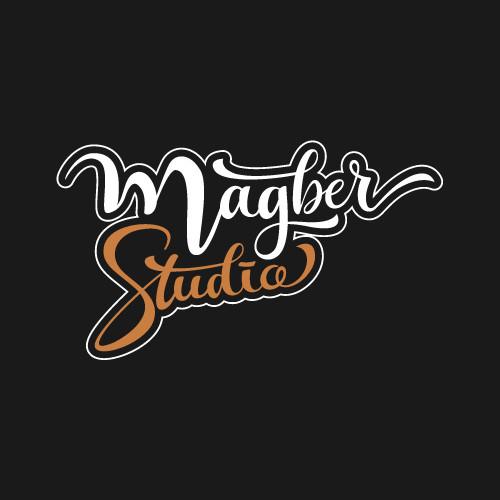
Jullyana Font Description
Jullyana is a modern script font created for packaging products, business cards, invitation cards, logotypes, and other projects that require high-quality typography. The graphics in this font, such as kerning and characters, are suitable for almost any crafty idea!